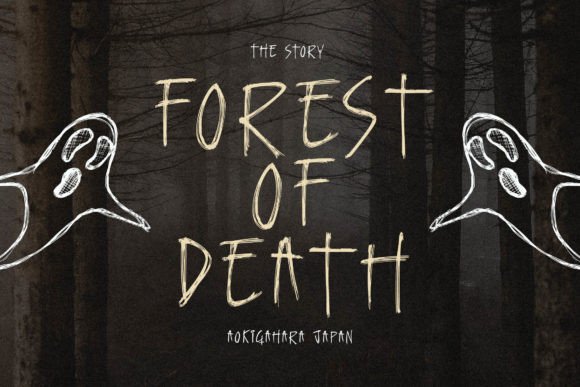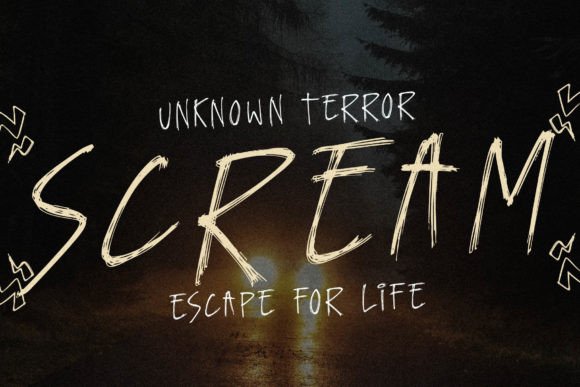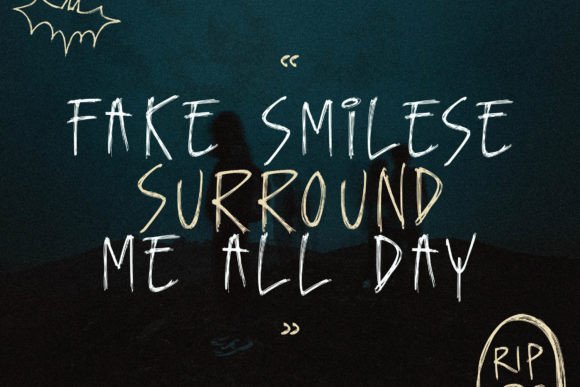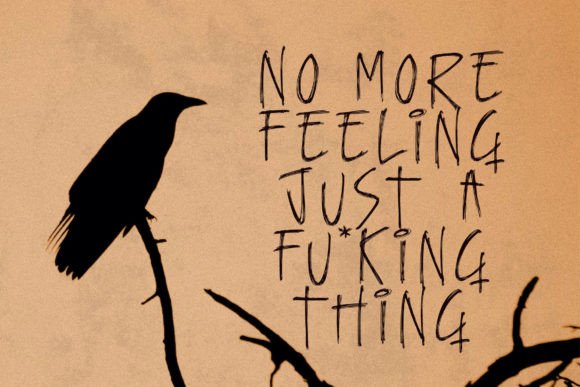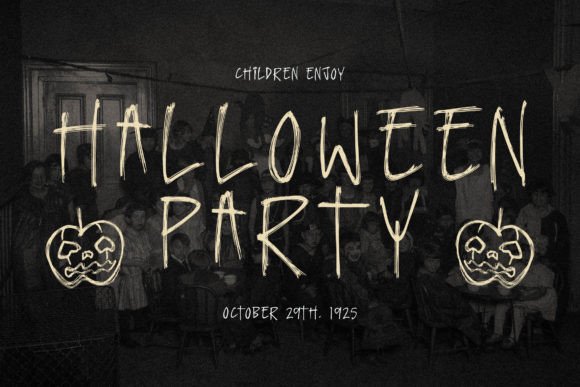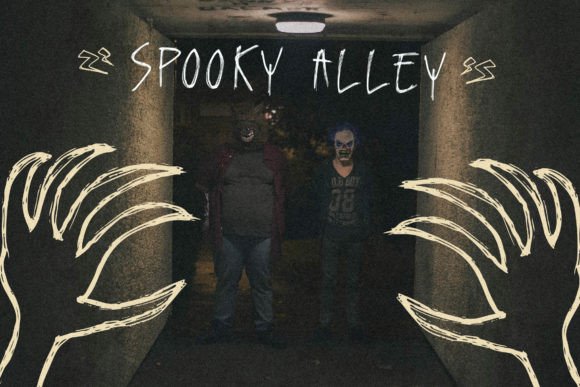
Geraint Font: The Ultimate Choice for Spooky Halloween Designs
As the spookiest time of the year approaches, designers and crafters are on the lookout for the perfect font to add a touch of eeriness to their Halloween-themed projects. If you’re looking for a font that will send shivers down your audience’s spine, look no further than Geraint Font. In this article, we’ll explore the unique features of Geraint Font and why it’s the perfect choice for your Halloween crafty ideas.
What is Geraint Font?
Geraint Font is a thin, spooky display font that’s designed to add a touch of eeriness to your designs. With its delicate yet unsettling appearance, Geraint Font is the perfect choice for designers and crafters who want to create spooky and eye-catching projects. Whether you’re working on a Halloween-themed invitation, a spooky poster, or a creepy craft project, Geraint Font is sure to impress and spook your audience.
Unique Features of Geraint Font
So, what makes Geraint Font so unique? Here are a few features that set it apart from other fonts:
- Thin and delicate: Geraint Font has a thin and delicate appearance that adds a touch of eeriness to your designs.
- Spooky and unsettling: The font’s spooky and unsettling appearance makes it perfect for Halloween-themed projects.
- Display font: Geraint Font is a display font, making it perfect for headlines, titles, and other display text.
- Easy to read: Despite its thin appearance, Geraint Font is easy to read, making it perfect for designs that require a clear and concise message.
Why Choose Geraint Font for Your Halloween Crafty Ideas?
So, why should you choose Geraint Font for your Halloween crafty ideas? Here are a few reasons:
- Adds a touch of eeriness: Geraint Font adds a touch of eeriness to your designs, making it perfect for Halloween-themed projects.
- Impresses and spooks your audience: The font’s spooky and unsettling appearance is sure to impress and spook your audience, making it perfect for designers and crafters who want to create memorable projects.
- Versatile: Geraint Font is a versatile font that can be used for a variety of projects, from invitations and posters to craft projects and more.
- Easy to use: Geraint Font is easy to use and can be easily integrated into your designs, making it perfect for designers and crafters of all skill levels.
How to Use Geraint Font in Your Designs
Using Geraint Font in your designs is easy. Here are a few tips:
- Use it as a headline font: Geraint Font is perfect for headlines and titles, making it a great choice for designers who want to add a touch of eeriness to their designs.
- Pair it with other fonts: Geraint Font can be paired with other fonts to create a unique and eye-catching design.
- Experiment with different colors: Geraint Font can be used in a variety of colors, from bold and bright to muted and pastel.
- Use it for DIY projects: Geraint Font is perfect for DIY projects, such as crafting and scrapbooking.
In conclusion, Geraint Font is a thin, spooky display font that’s perfect for Halloween crafty ideas. With its unique features, versatility, and ease of use, Geraint Font is sure to impress and spook your audience. Whether you’re a designer or crafter, Geraint Font is a great choice for anyone looking to add a touch of eeriness to their designs. So why not give it a try and see how it can elevate your Halloween-themed projects?